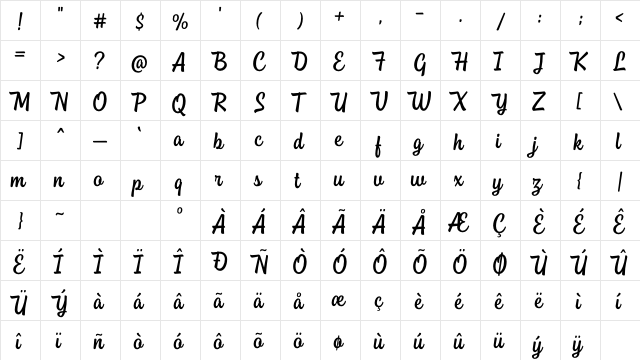
StangardDEMO Regular
| Foundry | Type Combo Studio |
| Designer | Iqbal Habibi |
Design Context for StangardDEMO Typeface
StangardDEMO is a composed and adaptable typeface that performs quietly and consistently across a wide range of design contexts.